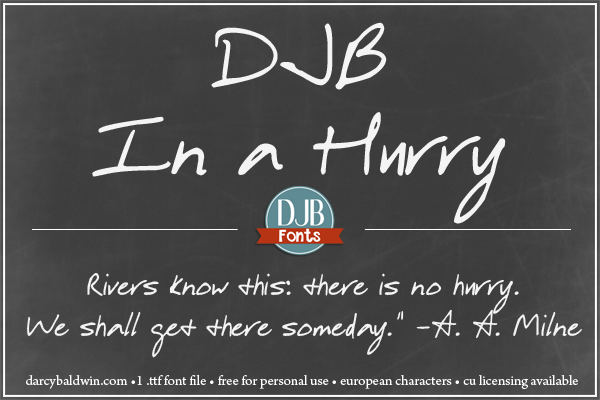
Preview and download DJB In a Hurry Font. Created by Darcy Baldwin in Script Handwritten styles with Free for personal use license.
Font name: | DJB In a Hurry |
A hurried masculine print which also includes European language characters. This font is free for personal use only. Please purchase a commercial use license at: http://darcybaldwin.com/commercial-use/ https://www.facebook.com/DarcyBaldwinFontography |